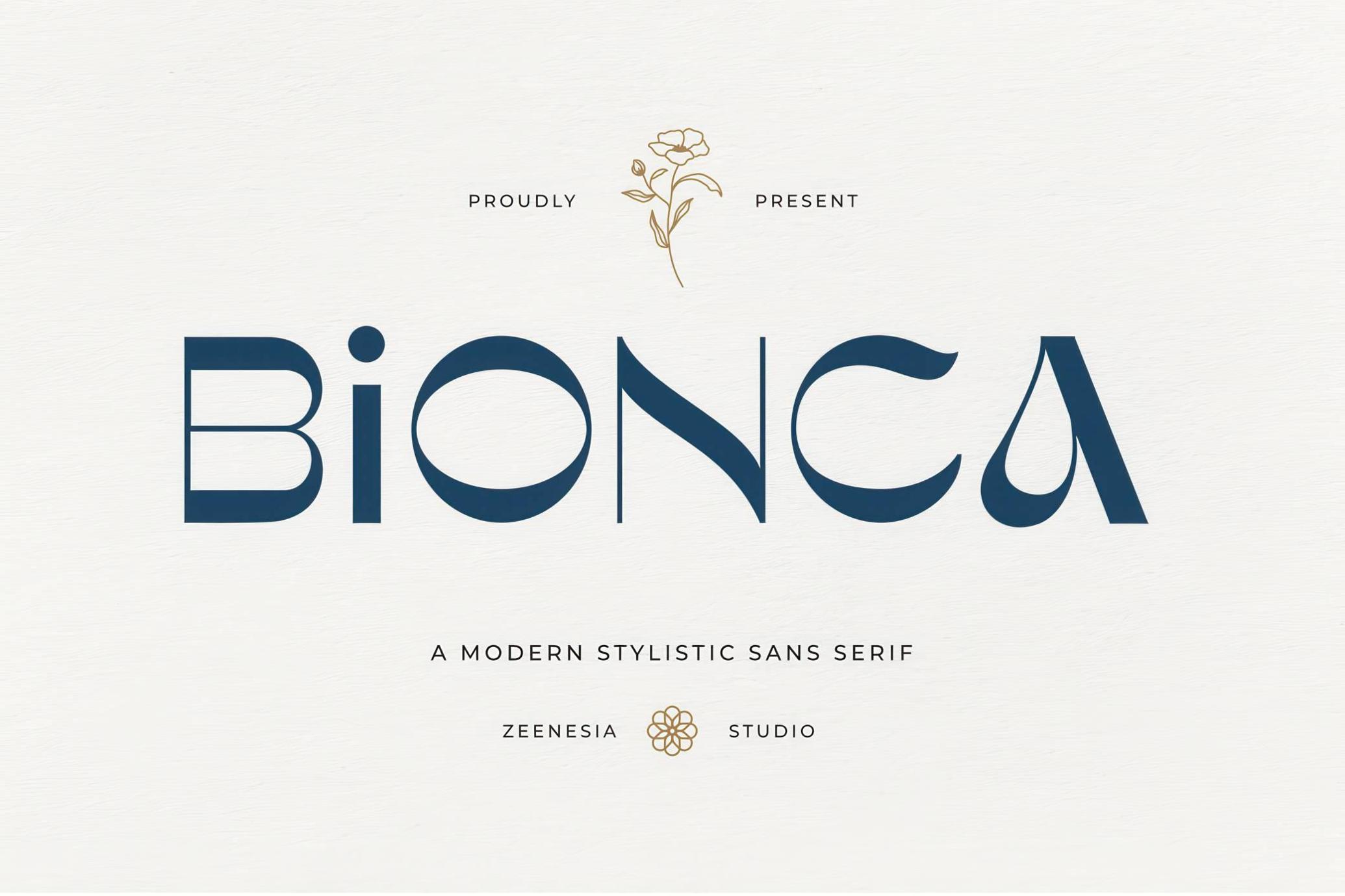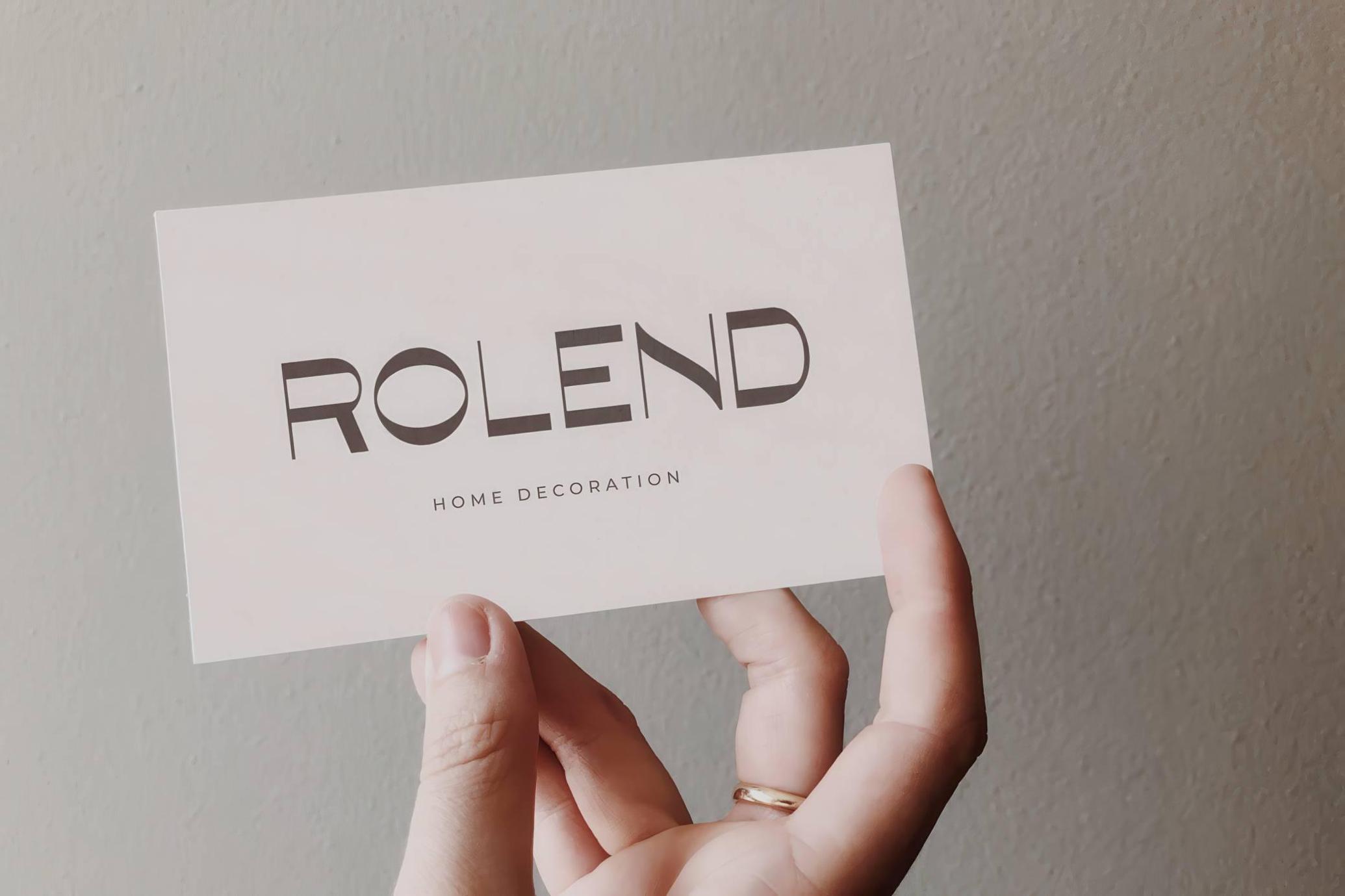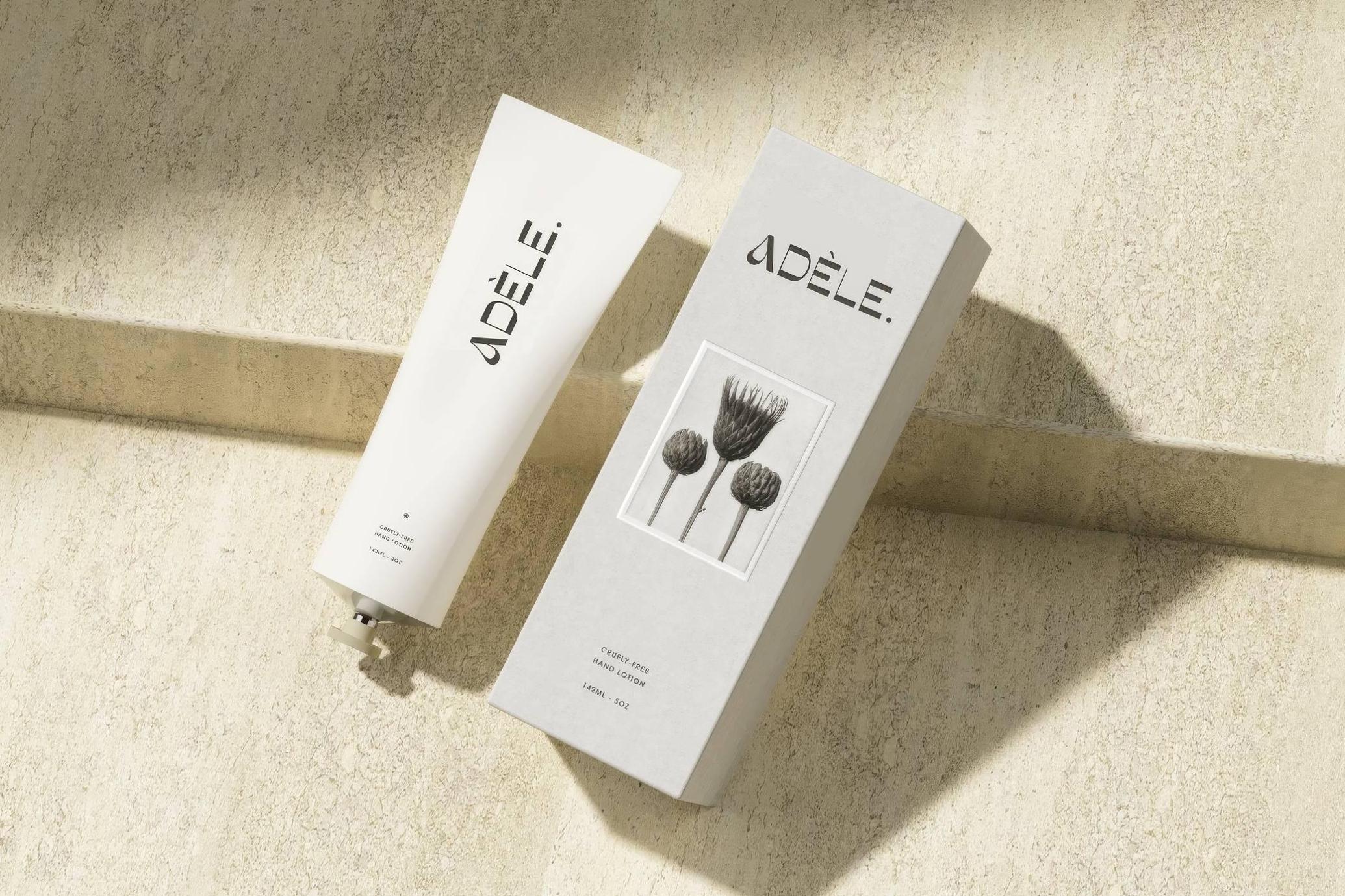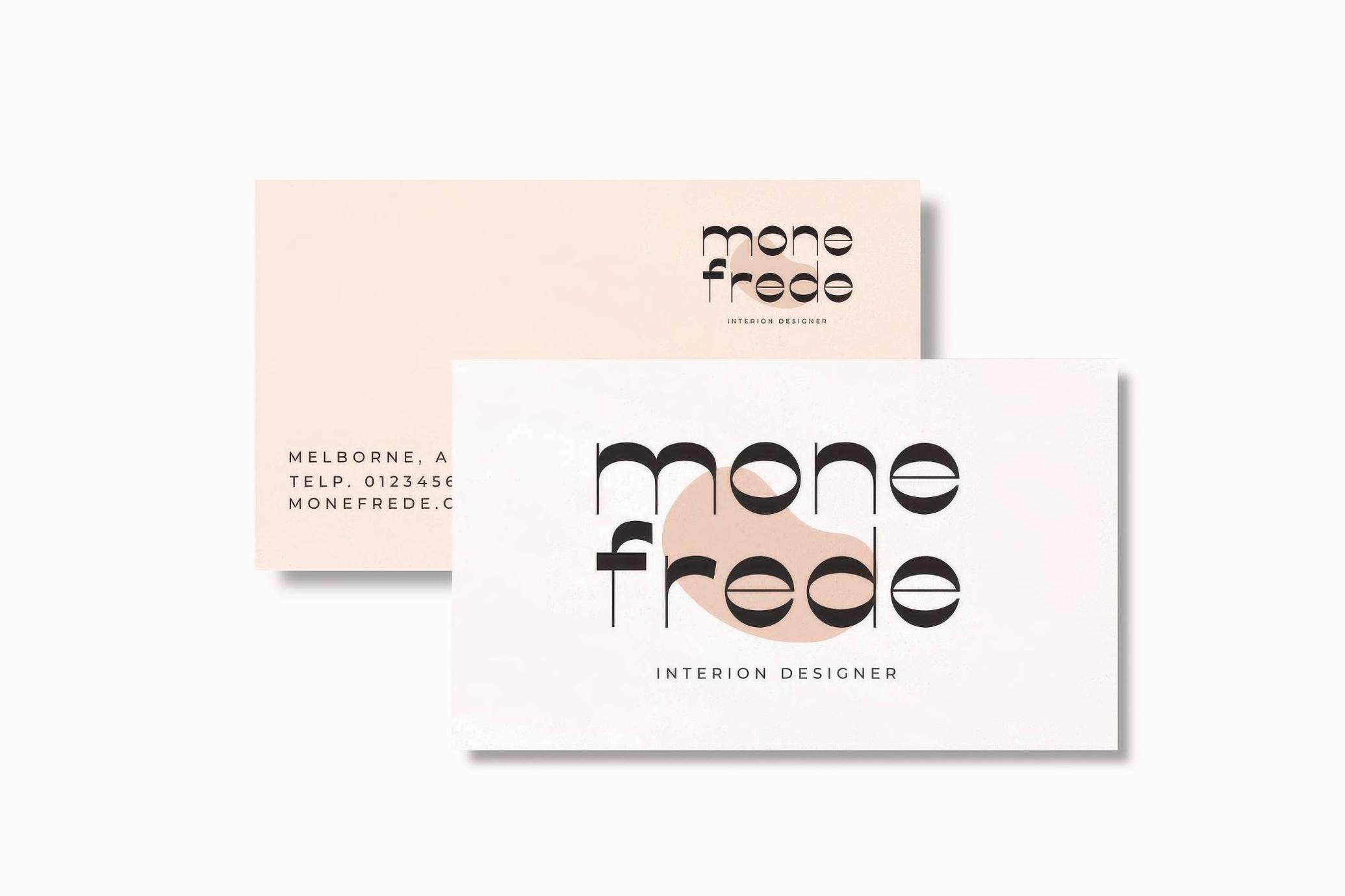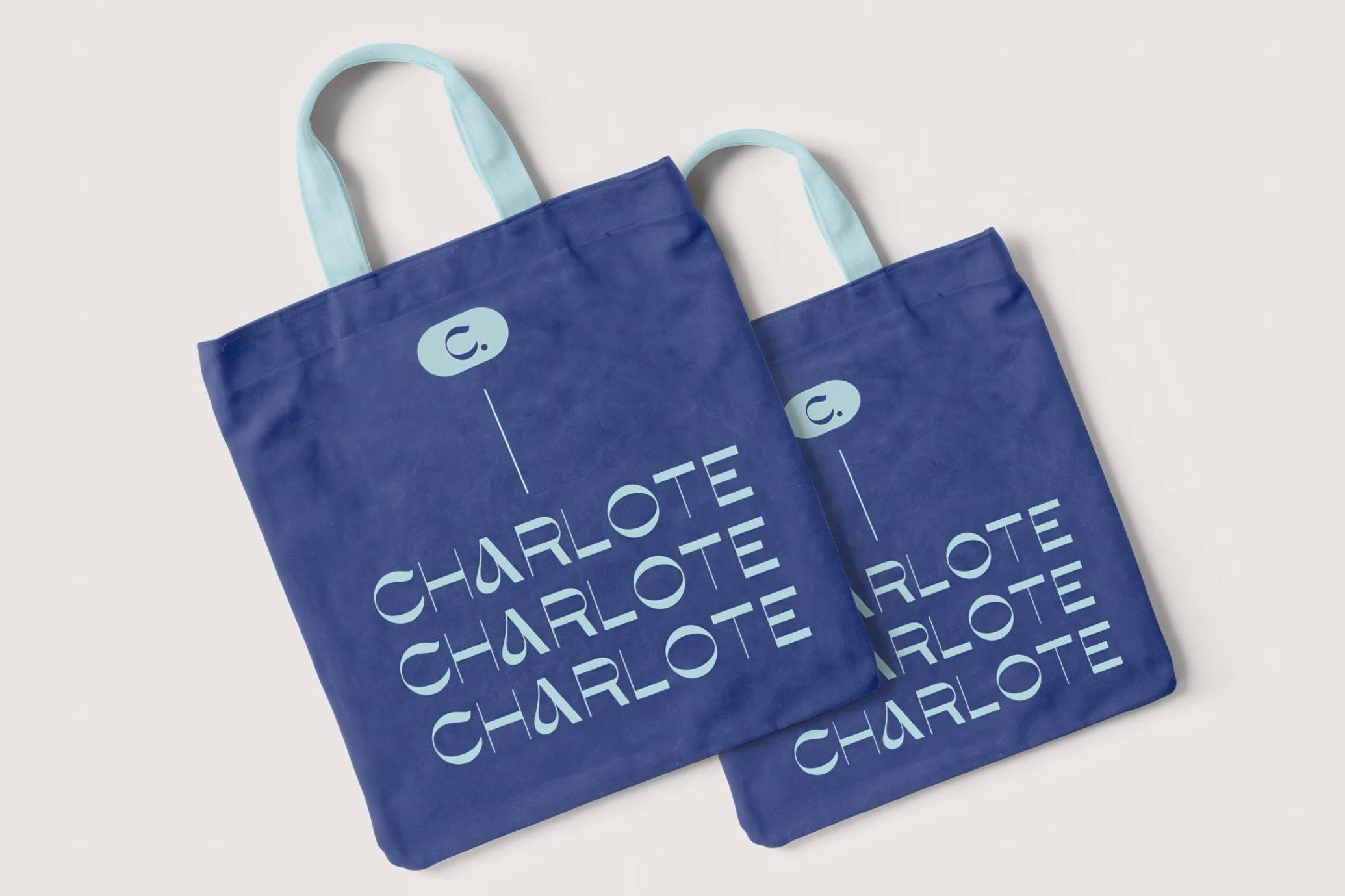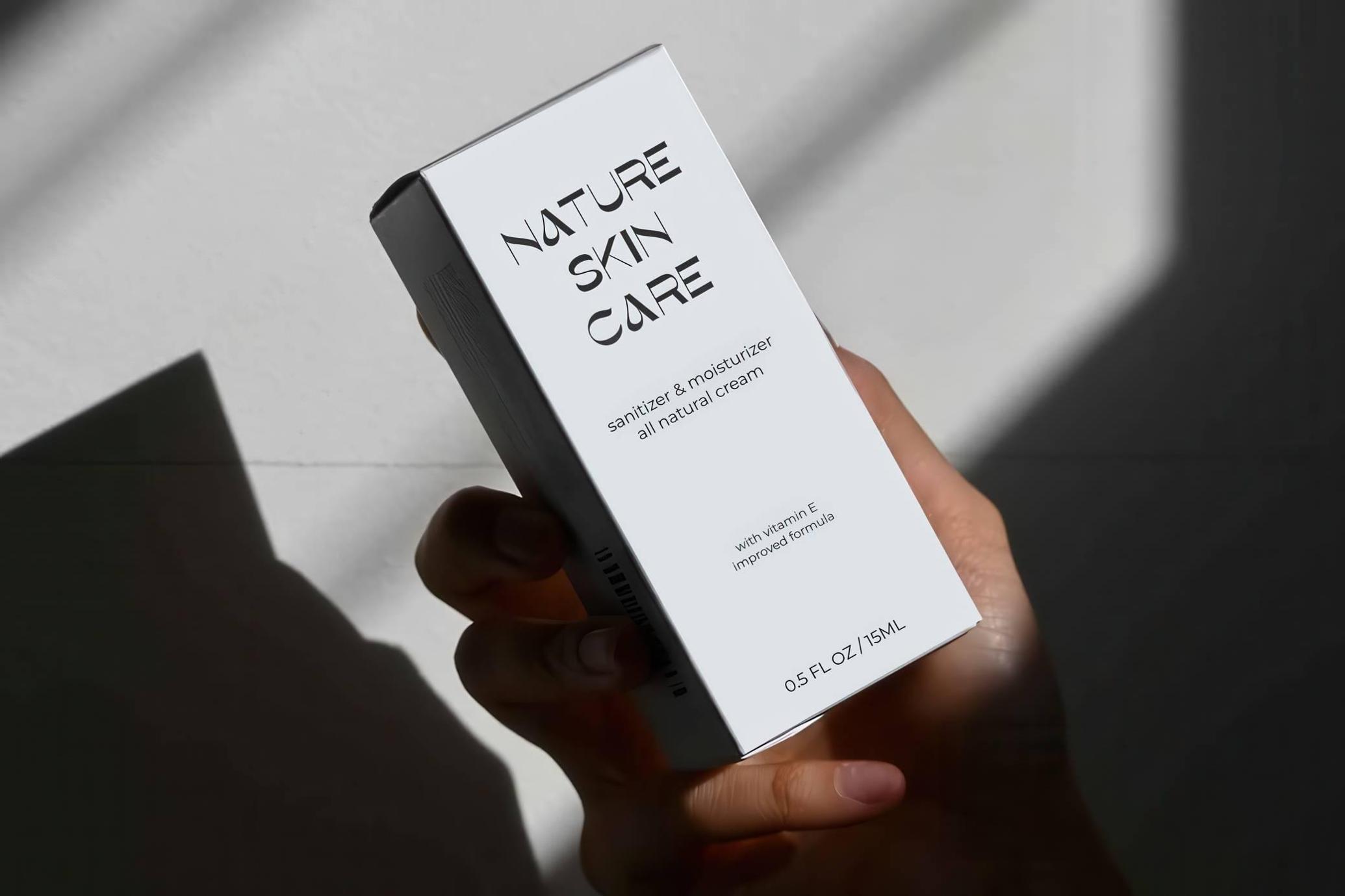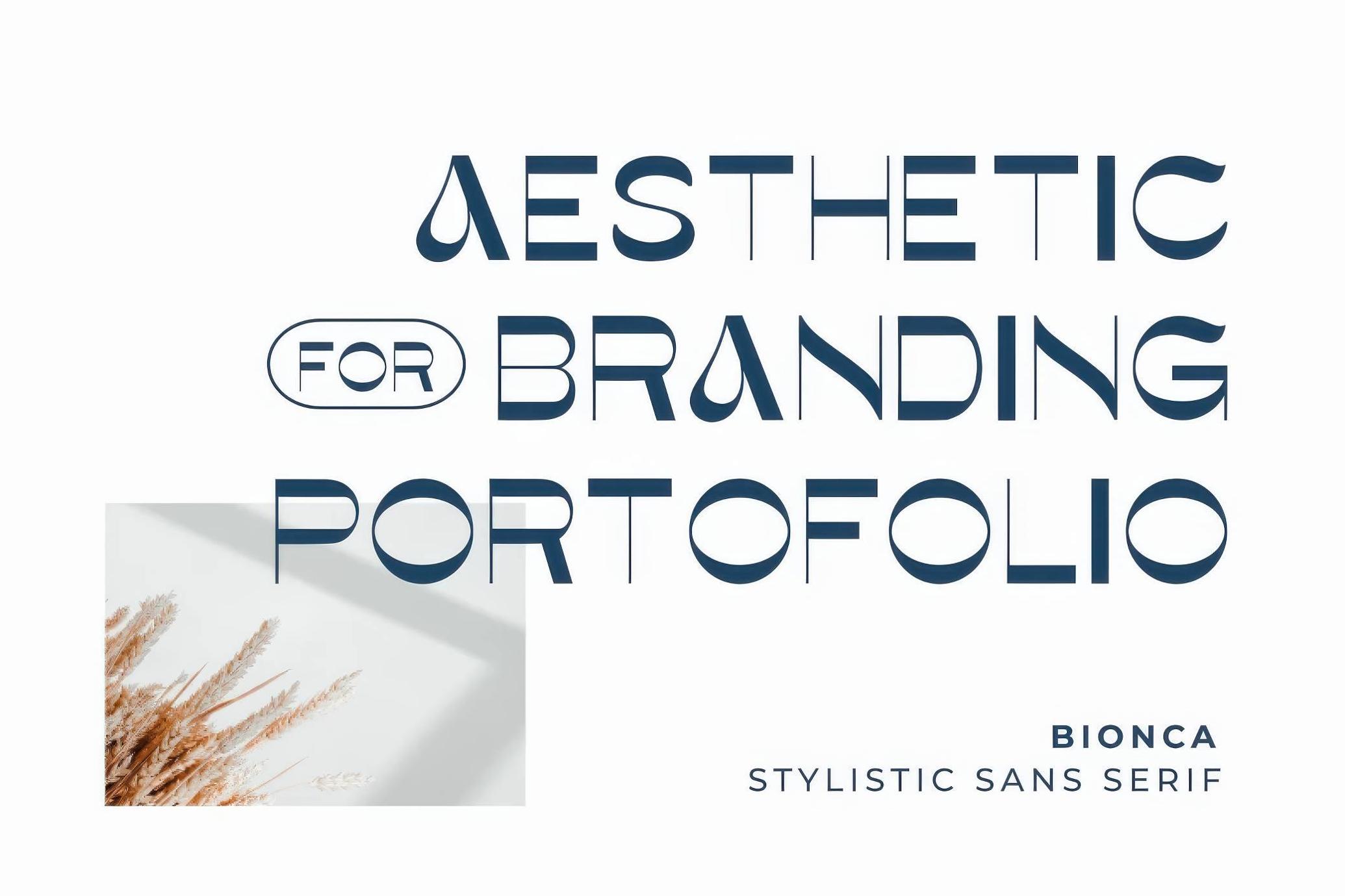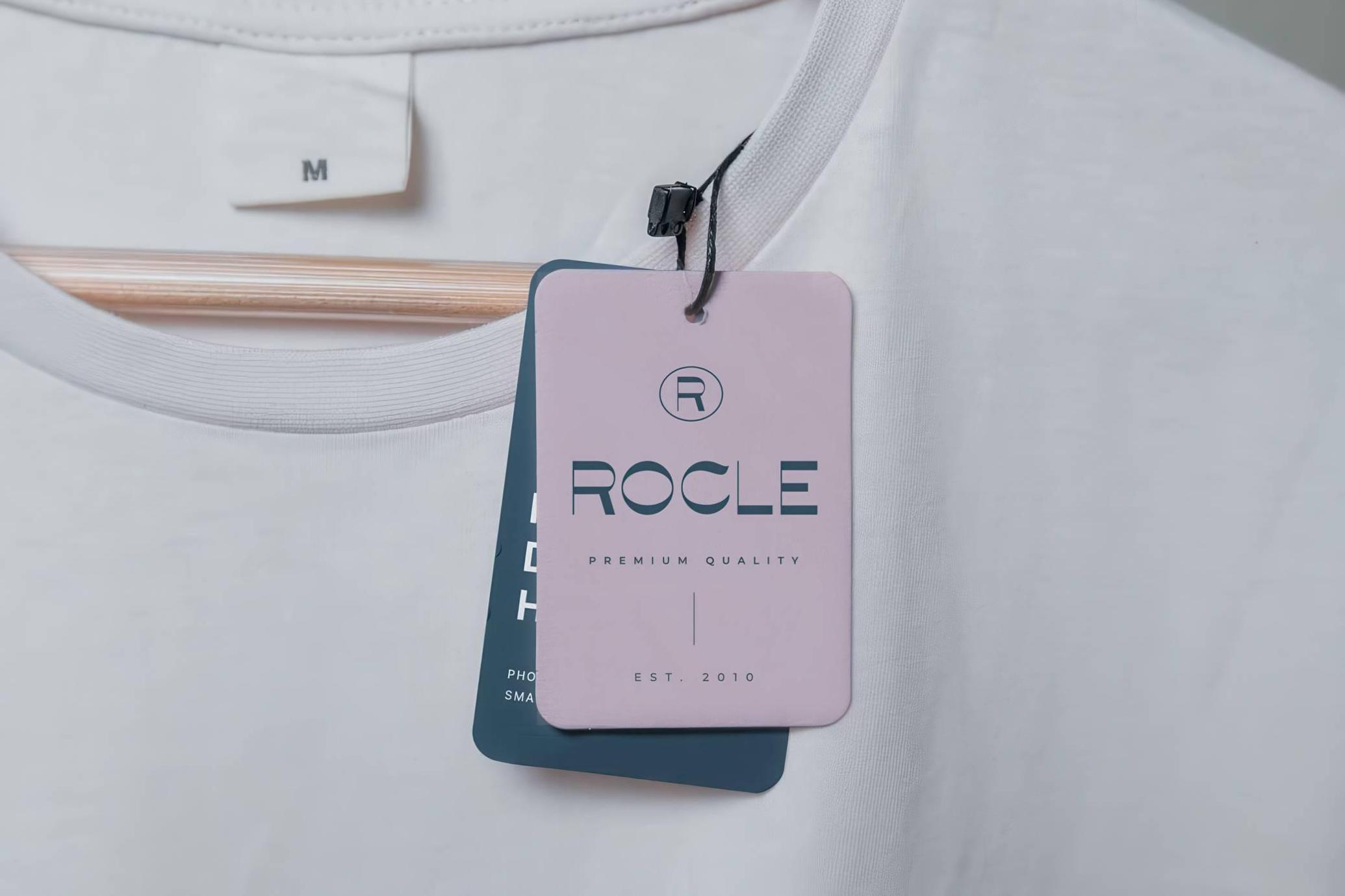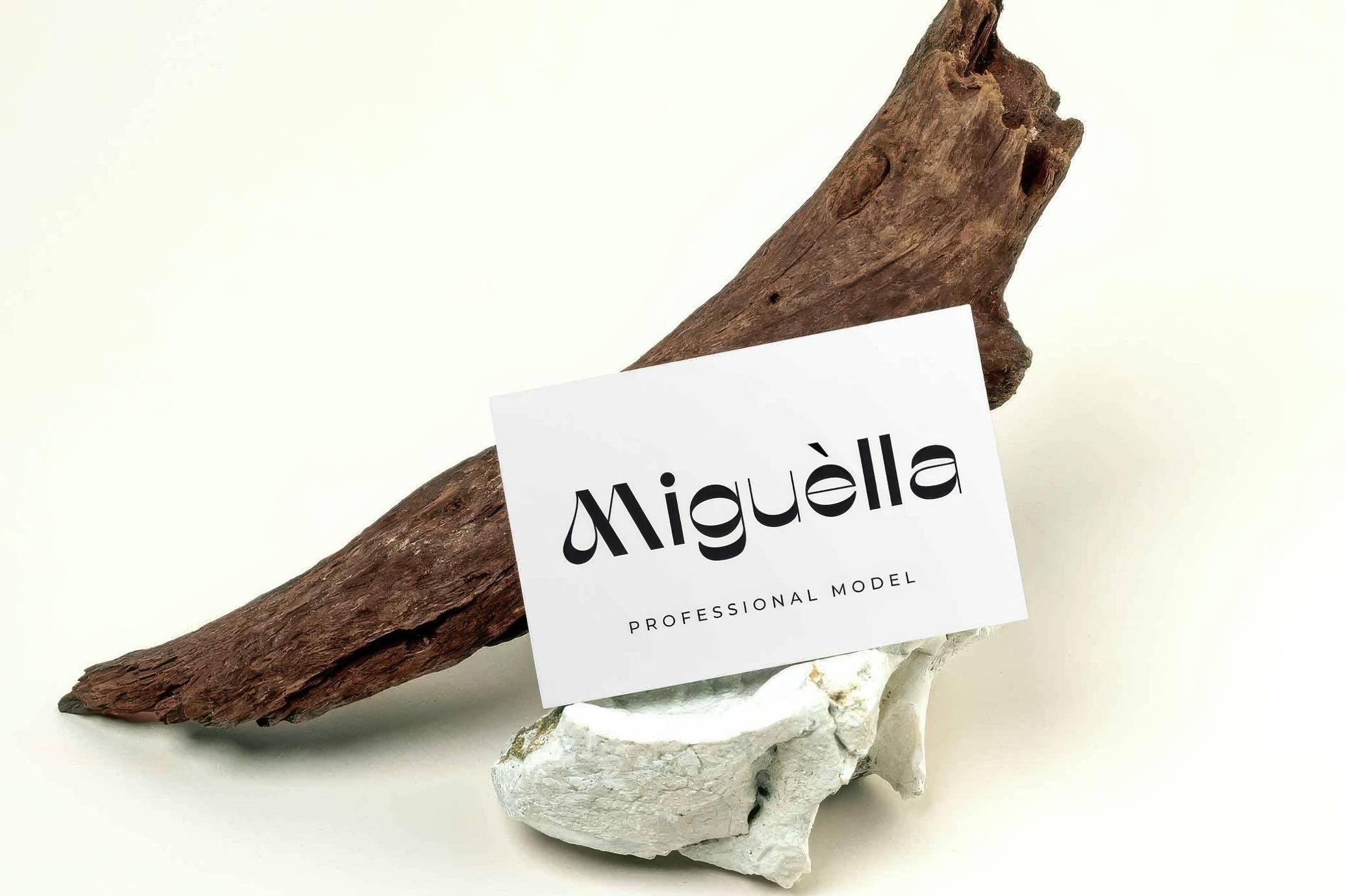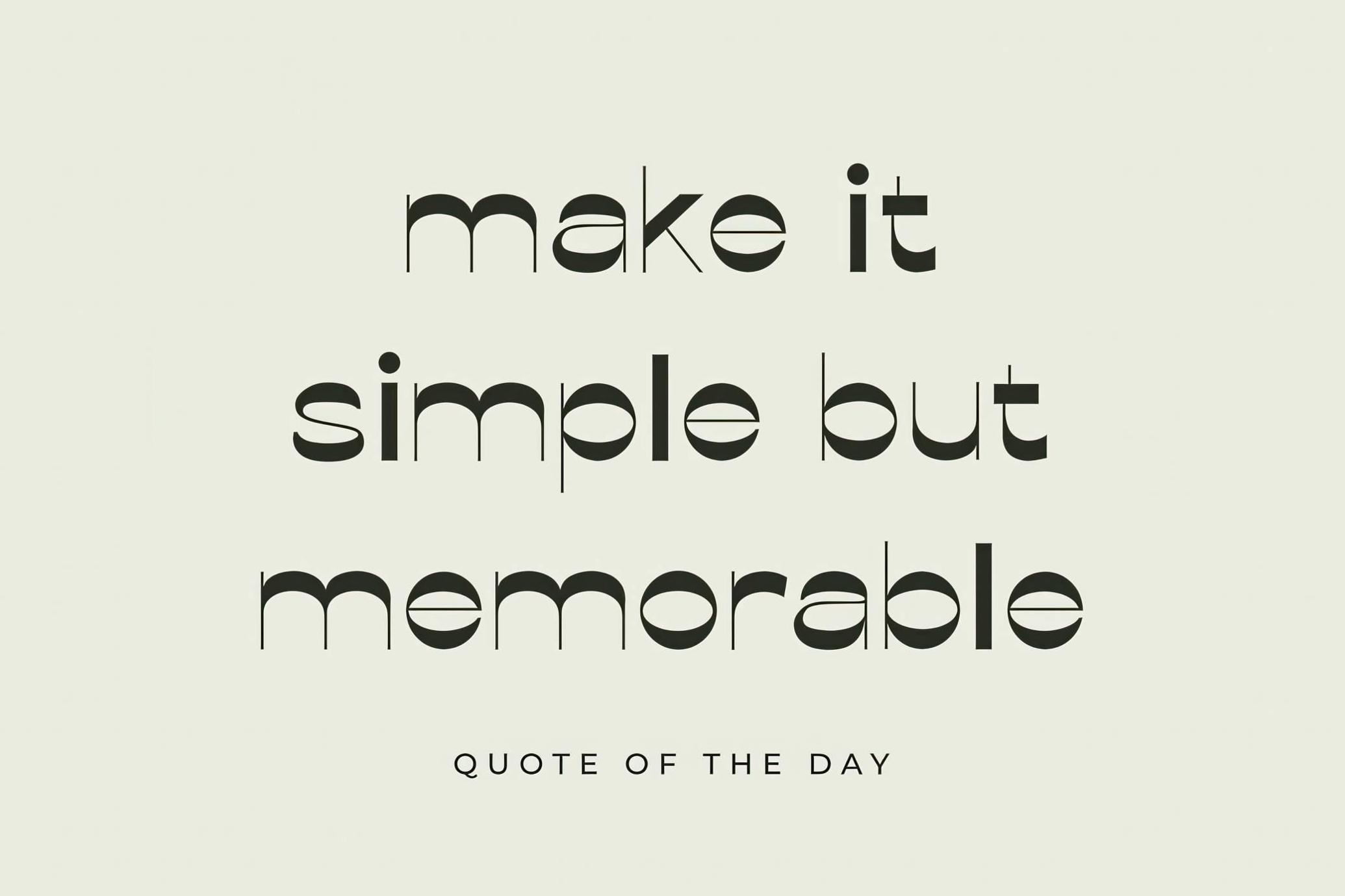
Bionca Stylistic Sans Serif
Sculptural letterforms of Bionca font echo the strokes of a dip pen with a wide nib: sharp joins, broad curves, and string contrasts that feel handwritten yet highly controlled. There's a sculpted quality to the letterforms, especially in the curves and terminals, that adds a subtle touch of luxury without leaning ornamental.
It’s a natural fit for logo design, fashion branding, magazine covers, web headers, packaging concepts, editorial pull quotes, and high-contrast social graphics. The set of glyphs includes standard uppercase and lowercase glyphs, symbols, numerals, and multilingual support. Provided in OTF/TTF/WOFF formats for seamless integration across print and digital workflows.